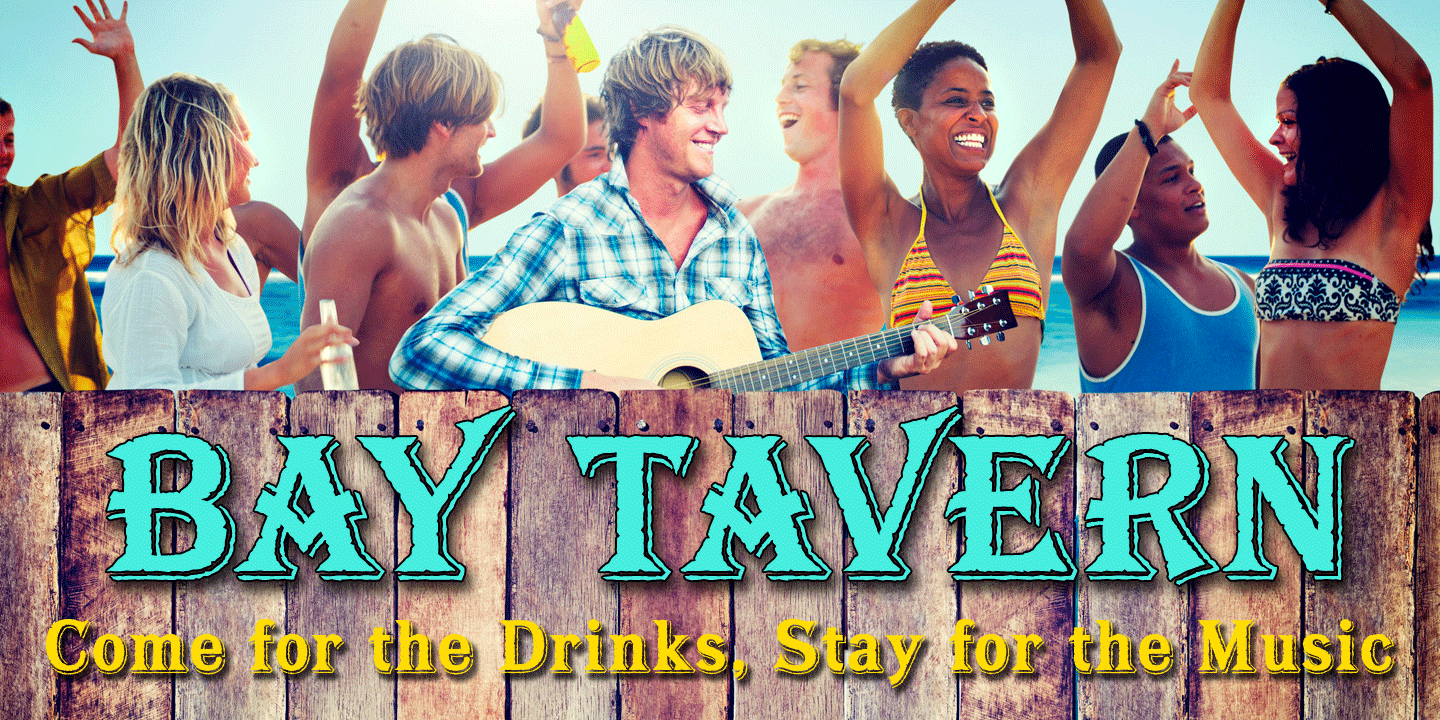
If you're looking for a rustic, vintage typeface with a charming, hand-crafted feel, Bay Tavern Font Free Download is the perfect choice for your creative projects. This unique font features bold, slightly weathered letterforms with a classic, retro style, making it ideal for logos, branding, signage, posters, restaurant menus, and designs that need a touch of warmth and history.
Bay Tavern Font combines a vintage aesthetic with modern readability, making it versatile for both print and digital applications. It includes multilingual support and a range of glyphs, providing designers the flexibility to create distinctive, inviting typography. Whether you're designing for a cozy pub, rustic brand, or creating nostalgic promotional materials, this font delivers personality and a welcoming vibe.